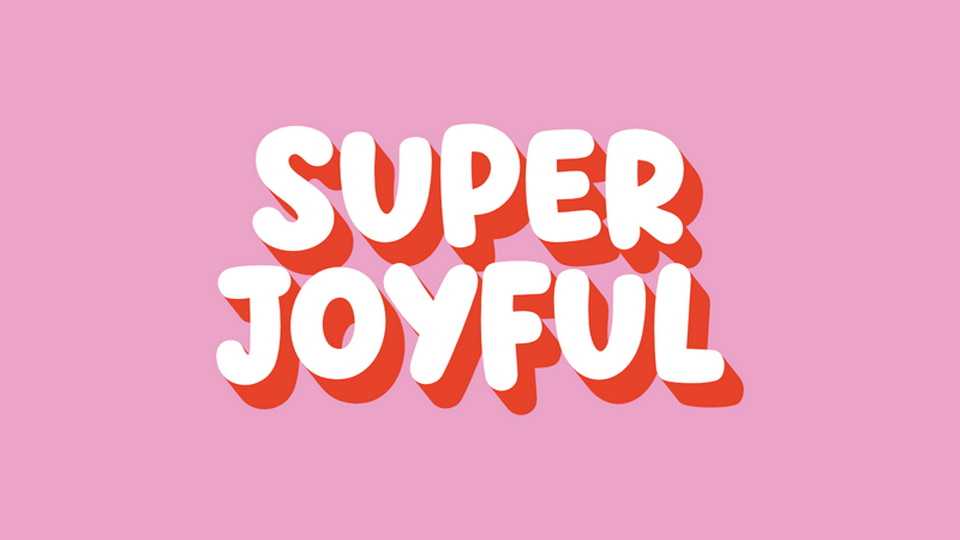
Download Super Joyful font, a bold, bubbly, and playful typeface that radiates happiness and positivity. Its rounded shapes and smooth strokes give it a soft, friendly personality.